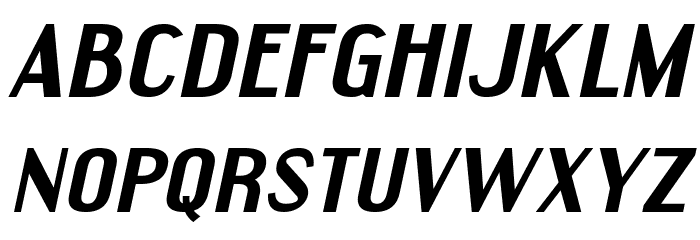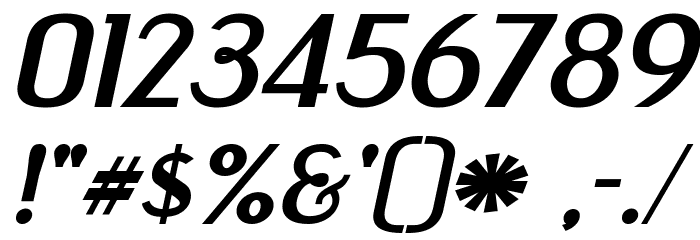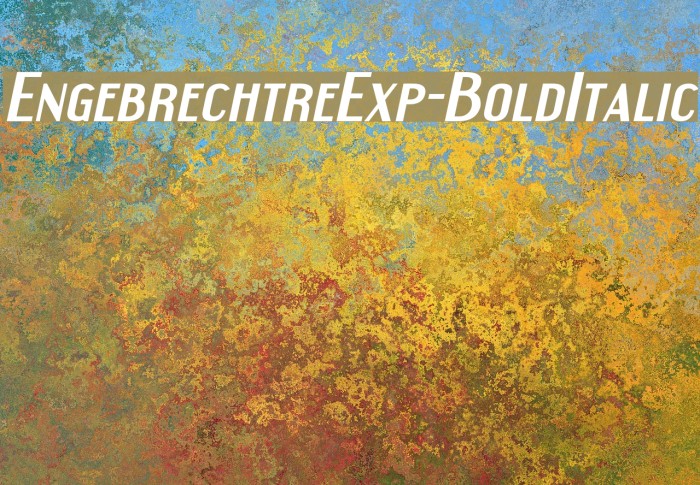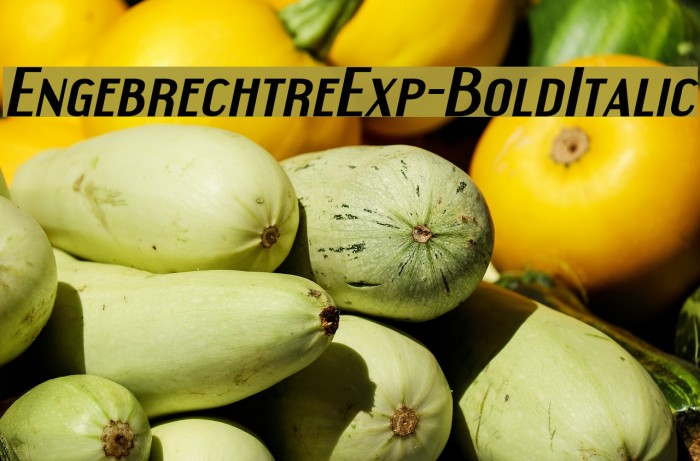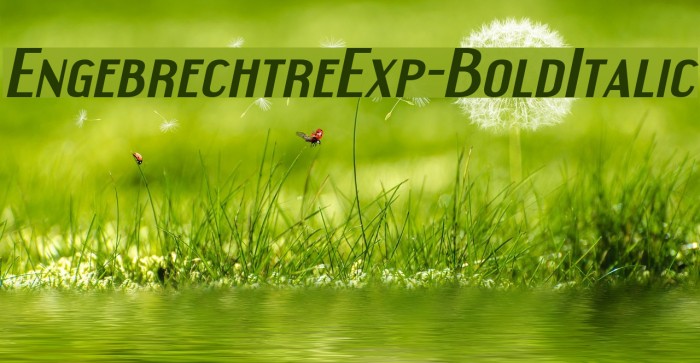
EngebrechtreExp-BoldItalic Font
This font exhibits a bold and italicized style with a modern and dynamic appearance. The characters are slightly condensed, giving a sleek and streamlined look. The strokes are consistent in thickness, providing a medium contrast that enhances readability while maintaining a stylish flair. The font's design is clean and professional, making it suitable for various applications. The uppercase and lowercase letters are well-proportioned, and the numerals are clear and distinct. Special characters are included, adding versatility to its use.
A bold, italicized, and modern font with medium contrast and a sleek appearance.
- Proposed Projects: Ideal for branding, advertising, headlines, and modern web design projects.
- Use Case: Headlines, Logos, Advertising